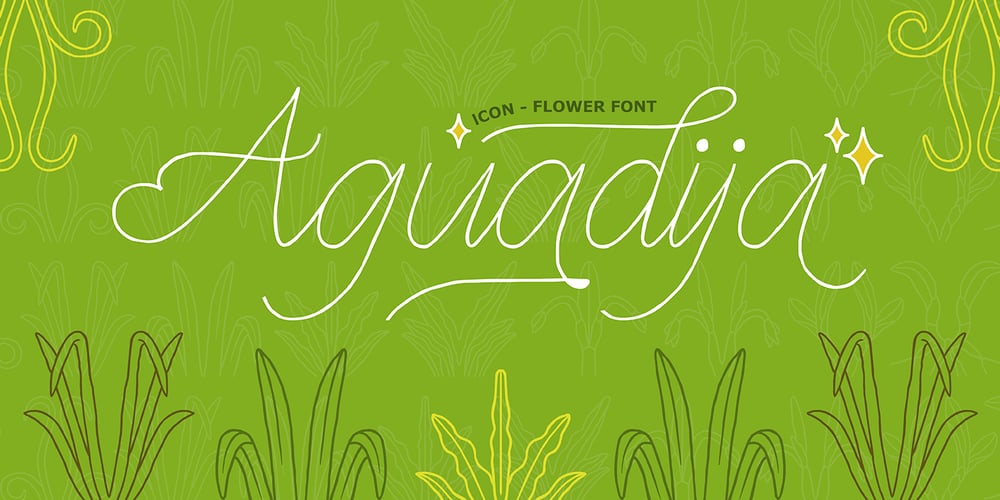
Aguadija
Aguadija font
Aguadija Font Family was designed by Christian Gamba Pardo and published by Christian Gamba Pardo. Aguadija contains 1 styles and family package options. This font contains plant icons from the taxonomic category Orchidaceae, inspired by the multiple specimens that can be found in Colombia that has the largest number of orchids in the world, more specifically in the specimens that have been exposed on the José Celestino Mutis botanical garden.These icons are characterized by having an organic outline; representing flowers, roots, leaves, bulbs and different supports or pots. The vast majority of icons have perfect bilateral symmetry because this is one of the differential characteristics of orchids (compared to other flowers), if they are divided by a central-vertical axis, their right and left sides are practically identical.“Aguadija” can be used in projects related to nature or similar topics, some icons (specifically the digits) are intended to form decorative ribbons or borders.